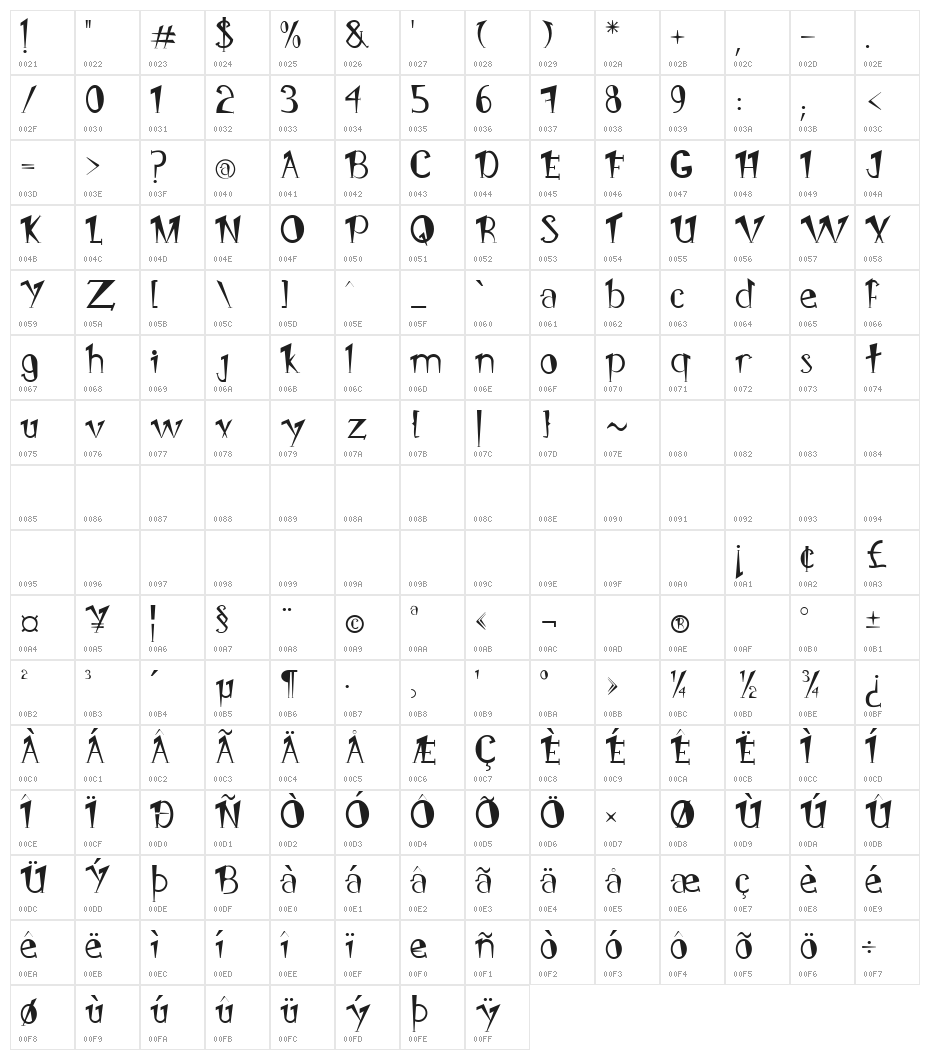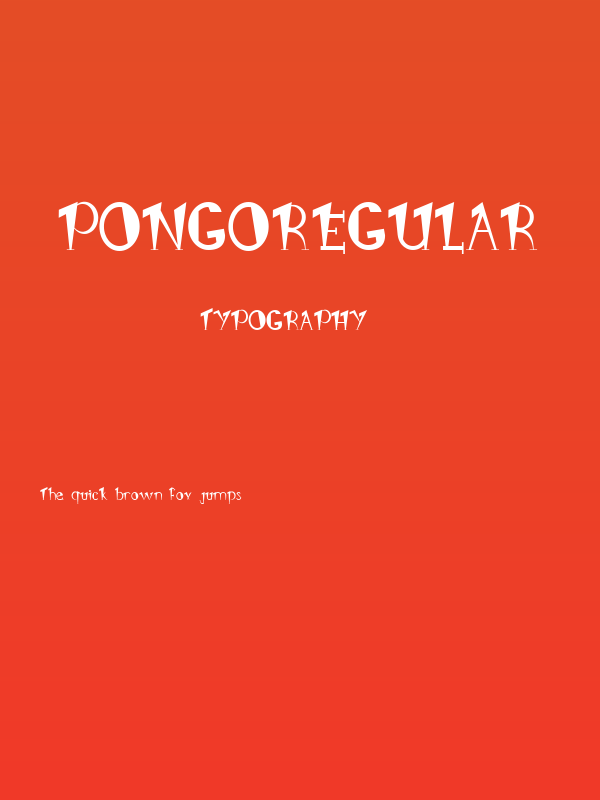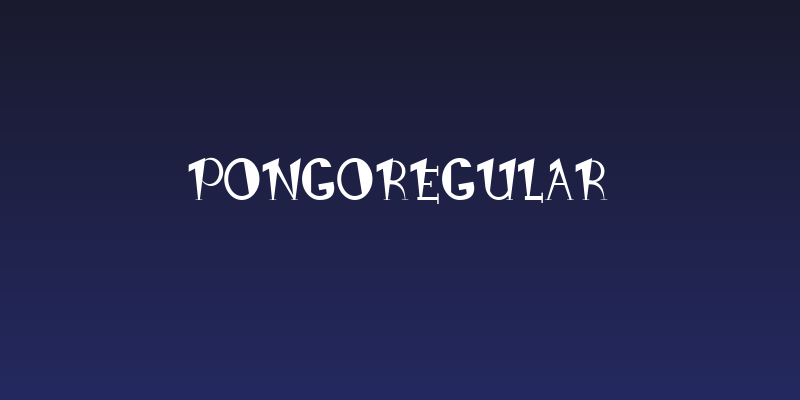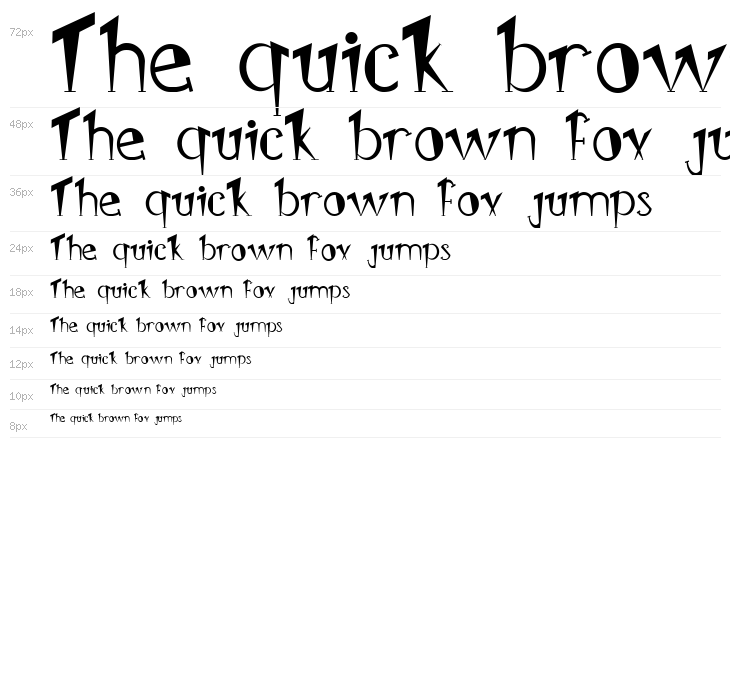
PongoRegular Font
PongoRegular Description
This font features a playful and whimsical design with a unique, hand-drawn appearance. The characters have an irregular, slightly tilted form, giving them a lively and dynamic feel. The uppercase letters are bold and prominent, while the lowercase letters maintain a consistent style with a touch of flair. The numbers are distinct and follow the same quirky aesthetic, making them stand out. Special characters are creatively designed, adding to the font's overall charm. The strokes vary in thickness, providing a moderate contrast that enhances readability while maintaining the font's artistic appeal.
Overall StylePlayful, Artistic
Use CaseHeadlines, Logos, Posters
Proposed ProjectsIdeal for children's books, playful branding, creative posters, and artistic invitations.